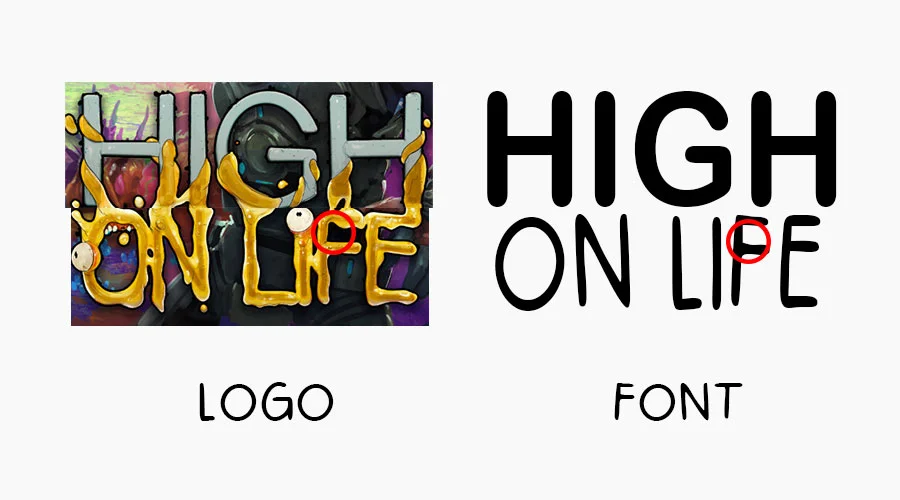
Today we are about to learn about the High on Life font. But first, can you tell us what “High on Life” is? So, High on Life is a first-person shooter video game created by Justin Roiland, co-creator of the animated television series “Rick and Morty.” The game’s plot revolves around an alien cartel that invades Earth and wants to get high off of humanity, and the player’s goal is to rescue and partner with talking guns to take down the aliens and save the world.
“High on Life” was released in 2022 and was the most significant Game Pass release of that year, the most prominent third-party launch in Game Pass history, and the biggest single-player game launch on Game Pass ever. Recent reviews of the game have been very positive, with over 7,000 reviews.
The logo of this game has become very popular due to its popularity, and people have been searching for it.
So, what is the High on Life font?
The video game “High on Life” logo is a custom-designed font by the game studio. The logo has two designs: one for the word “high” and one for the word “on life.”
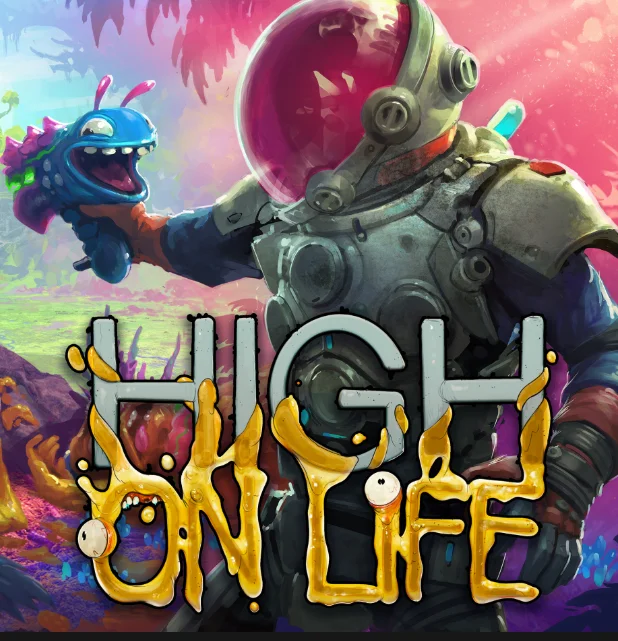
There is a font that looks similar to the logo word “high” but is not quite the same, called Arial Rounded Regular. Because of customization, the edge of the logo word “High” is rough and uneven. But you will be convinced if you check the logo and font structures side by side.
In addition, we found a font called Aliman that looks similar to the logo word “On Life.” It is important to note, however, that the design of the logo word “On Life” does not match the font exactly. In the logo, there is a liquid-like element surrounding the word “On LIFE,” as well as a part of the word “High.” For a better understanding, please see the image below.
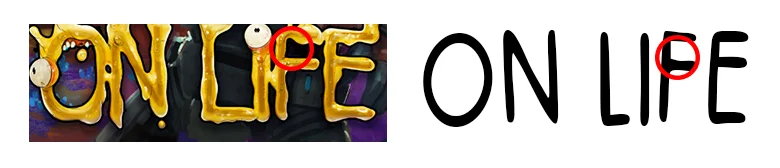
In conclusion,
We did our best to provide you with the exact font through our content. The given images will give you a proper answer about the High on Life font. You can use these fonts on your design projects. We also try to locate the fan-made font, but it is currently unavailable. If we find anything in the future, we will update this content.